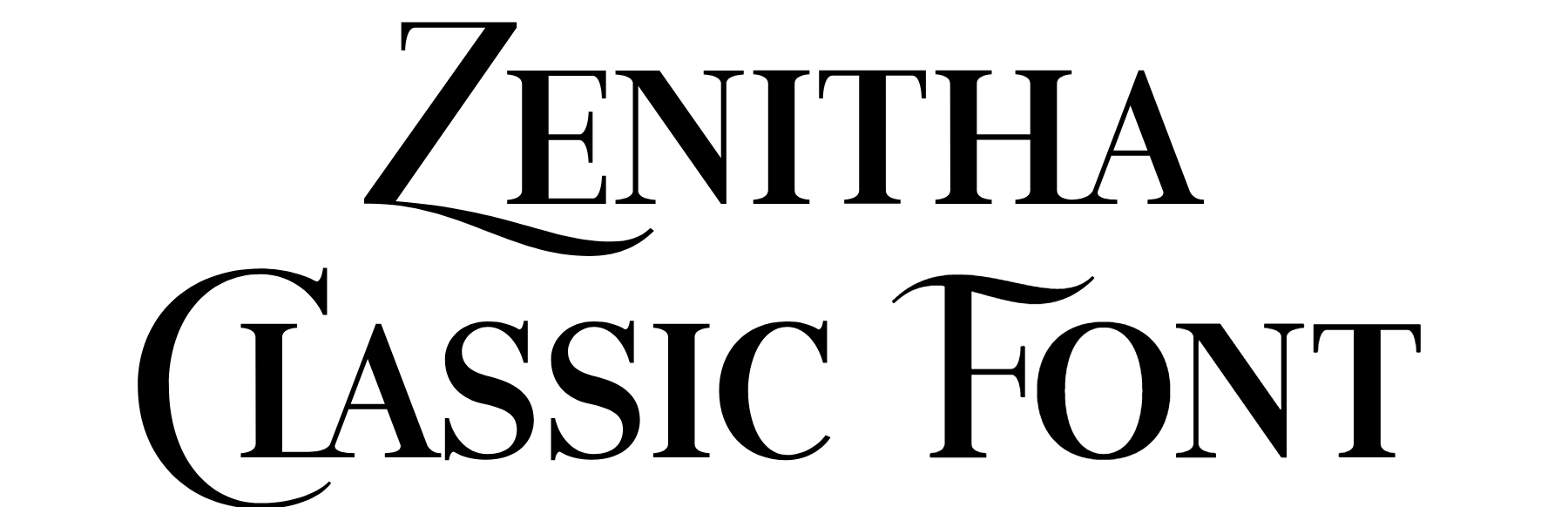
Zenitha Classic
Zenitha Classic is a serif font designed by Mans Greback and published by Mans Greback AB (2025). It has the traditional, bookish feel of type you see in novels, newspapers and long-established brands. You can download it for free and test it with your own words in the preview above.
- OpenType features: Ligatures, 2 stylistic sets, old-style numbers and fractions
Zenitha Classic covers the full alphabet in upper and lowercase, plus all ten numbers, so you can set names, dates and prices without switching fonts. Common punctuation such as &, !, ? and @ is included as well. It also has the accented letters you need for Spanish, French, German, Portuguese and Italian.
Where Zenitha Classic Works Best
Zenitha Classic is a natural fit for book covers, magazine headlines and classic branding. Serif fonts shine in headlines and printed text. For long paragraphs on phones, check that it still reads well at small sizes.